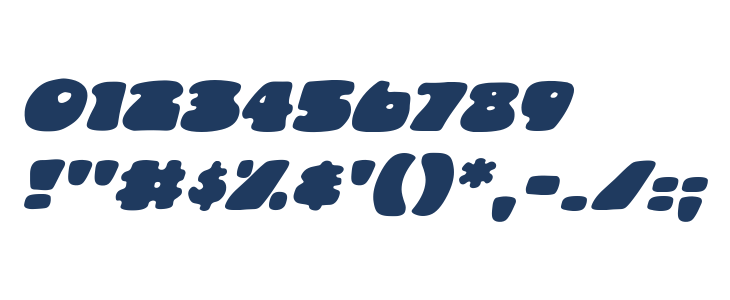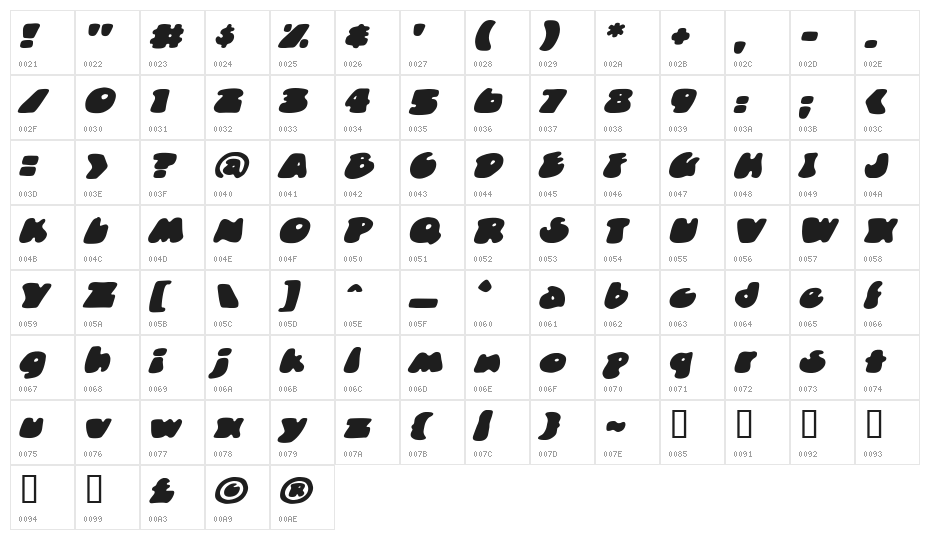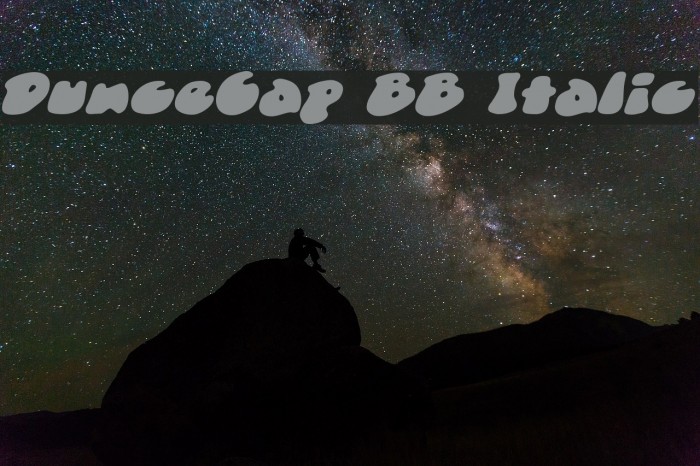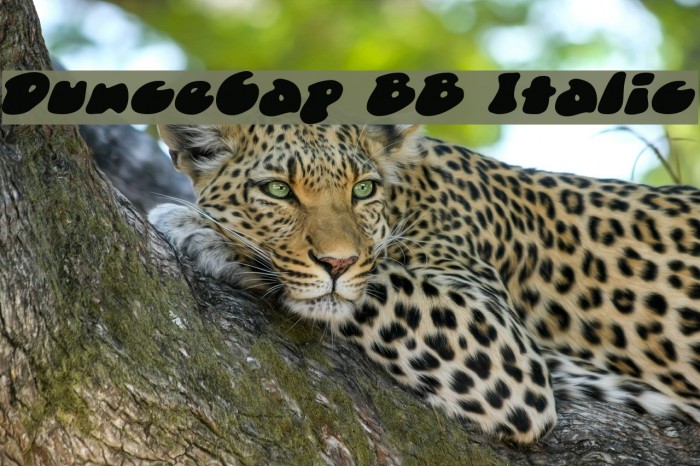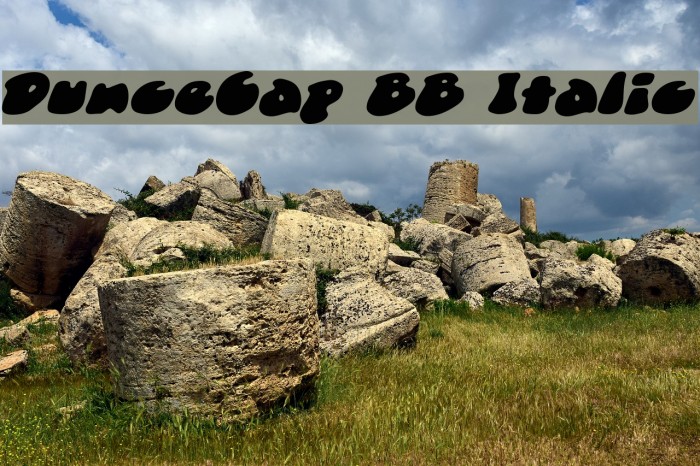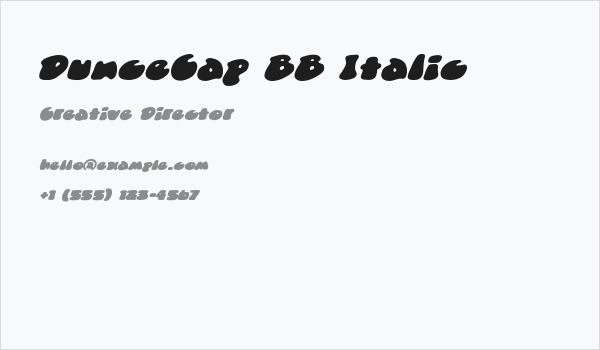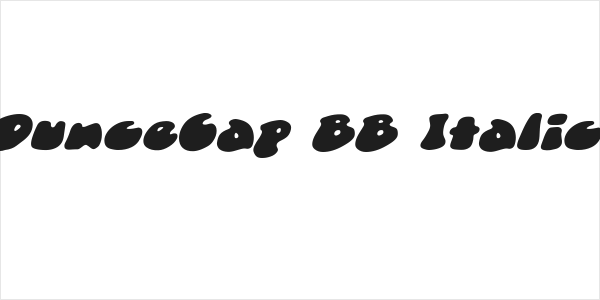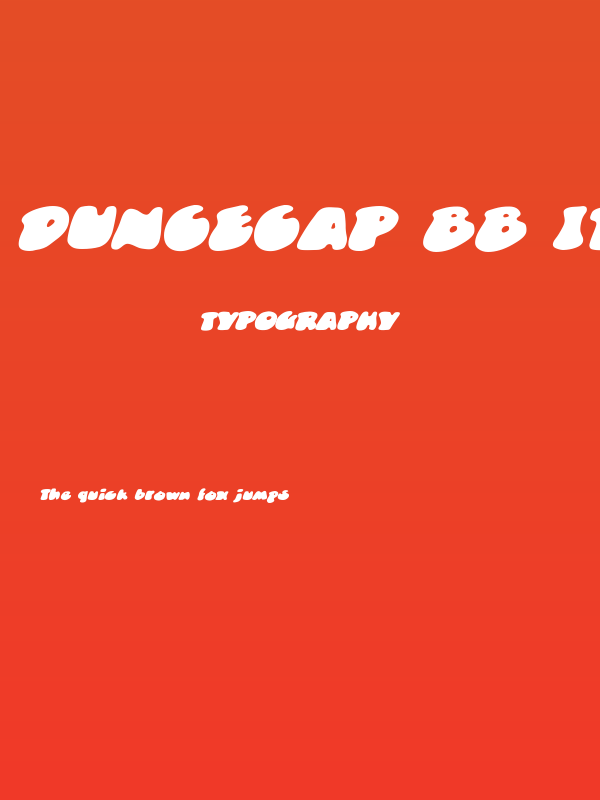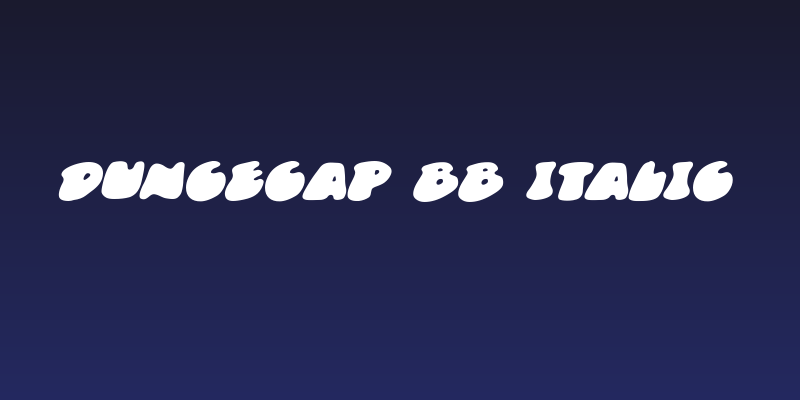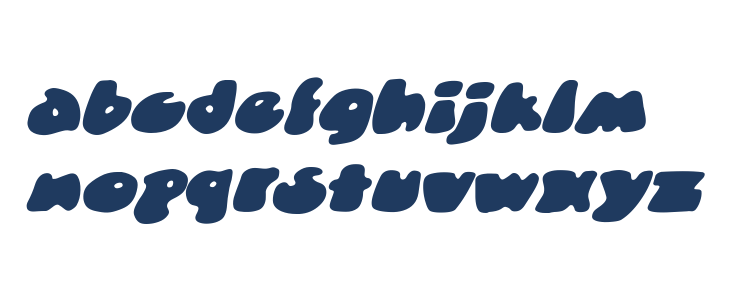
DunceCap BB Italic Font
DunceCap BB Italic Description
This playful and bold font features a bubbly, rounded style with a distinct italic slant. The characters are thick and have a whimsical, cartoonish appearance, making them stand out with a fun and energetic vibe. The uppercase and lowercase letters maintain a consistent style, with exaggerated curves and a slightly uneven baseline, adding to the font's quirky charm. The numbers and special characters follow the same design principles, ensuring a cohesive look across all elements. This font is ideal for projects that require a lively and informal touch.
| Overall Style | Playful, Cartoonish, Whimsical |
| Proposed Projects | Perfect for children's books, comic strips, playful branding, and party invitations. |